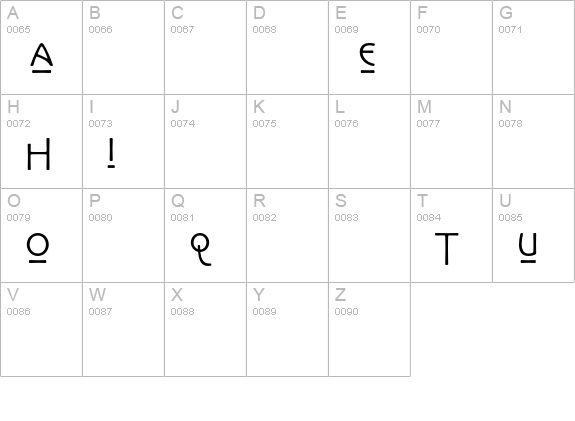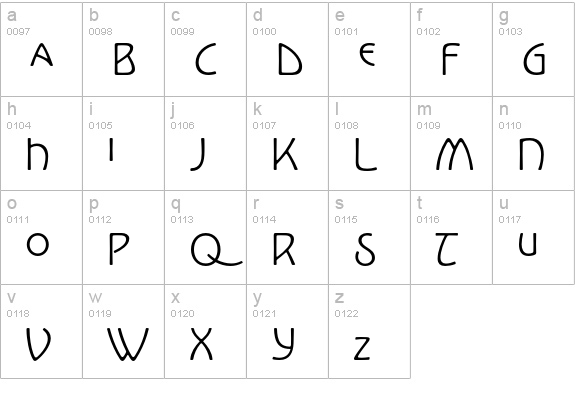
Kolo LP Alternates Font Details
Kolo LP Alternates is a beautifully crafted font that exudes elegance and sophistication. Its unique alternates and decorative elements add a touch of creativity and flair to any design project. This versatile font is perfect for a wide range of applications, from branding and advertising to invitations and social media graphics. What sets Kolo LP Alternates apart is not only its stunning design but also the fact that it is completely free to use. Yes, you read that right - this amazing font is freely available for download at FontsMarket.com. Now you can elevate your designs without breaking the bank, thanks to this generous offering. Whether you're a seasoned graphic designer looking to add a fresh touch to your projects or a beginner experimenting with typography, Kolo LP Alternates is sure to impress. Download it today and let your creativity soar with this exceptional font.